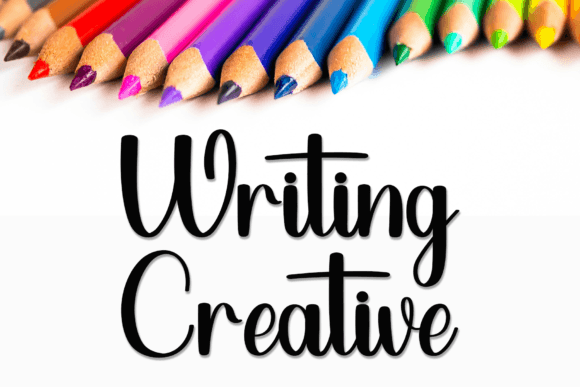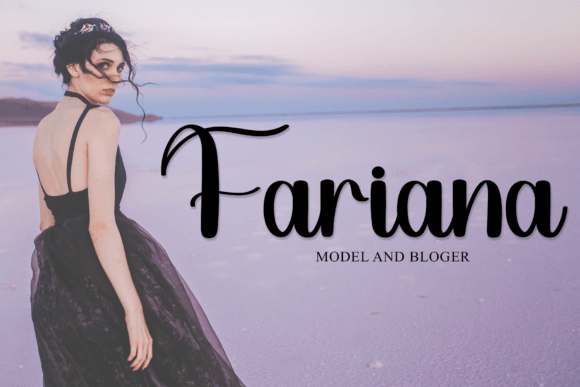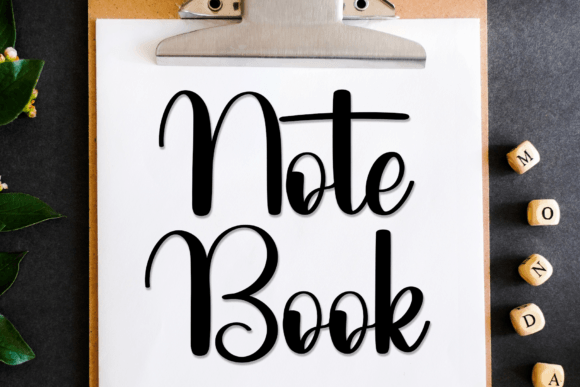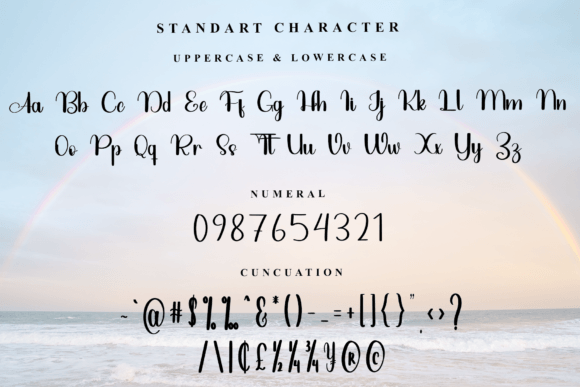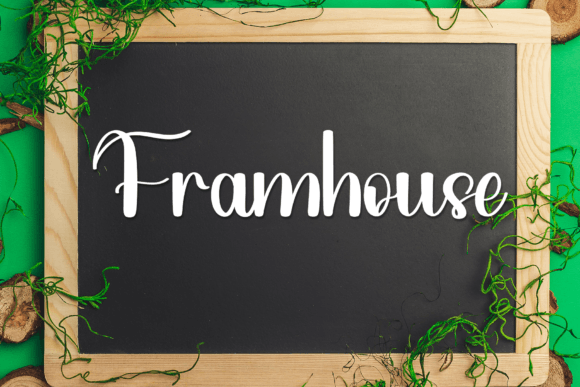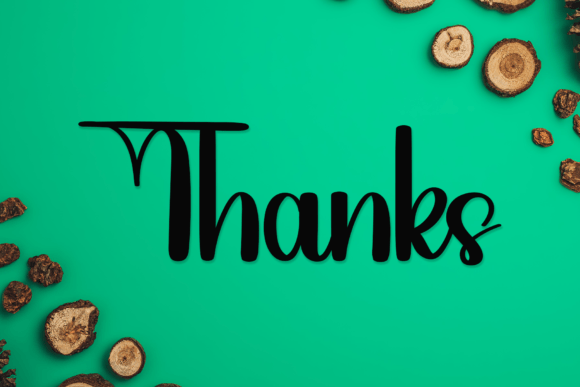
The Spirit of the Season in Every Line
As the snowflakes start to fall and the festive lights twinkle, there’s something magical in the air. For designers, this time of year is a chance to get creative and infuse their work with the warmth and joy of the holiday season. And what better way to capture that spirit than with a font that embodies the very essence of the holidays?
Enter Holiday Font, a delightful typeface that’s perfect for greeting cards, gift labels, and all sorts of holiday-themed projects. With its playful decorations and unique flair, this font brings a cheerful and nostalgic atmosphere to your words. Whether you’re a seasoned pro or a design newbie, Holiday Font is a valuable addition to your toolkit, offering a range of glyphs and ligatures that are easily accessible thanks to its PUA coding.
Holiday Font Key Features
- Font Family: Holiday Font is a unique, hand-drawn font with a festive feel.
- Unique Characteristics: Features intricate, hand-drawn designs and ornaments, perfect for holiday-themed projects.
Holiday Font Review
As a designer, I was excited to dive into the “Holiday Font” and see if it’s a perfect addition to our holiday graphics collection. ✨ Here are my thoughts:
- ✨ Unique, whimsical design that captures the festive spirit of the holiday season
- ✨ Beautifully crafted characters, including ornaments, decorations, and special symbols
However, I did encounter a few limitations:
- ⚠️ Limited font sizes available, which may not be suitable for all designs
- ⚠️ Some characters, such as punctuation marks, may not be as polished as the rest of the font
- ⚠️ No bold or italic font styles available
Overall, I think the “Holiday Font” is a great addition to any holiday design project. While it may have some limitations, its unique design and high-quality characters make it a standout choice. With a few tweaks to address the limitations, this font has the potential to be a real showstopper.
For a more festive look, try combining Holiday Font with other seasonal graphics and colors.
Experiment with layer blending modes and opacity to achieve a unique, layered look.
Combine Holiday Font with festive graphics and colors to create eye-catching presentations and documents.
Holiday Font is perfect for:
- Creating festive invitations and party decorations.
- Designing holiday-themed social media graphics and ads.
- Adding a touch of whimsy to holiday-themed presentations and documents.
Remember to experiment with different font sizes, colors, and styles to achieve the desired effect.